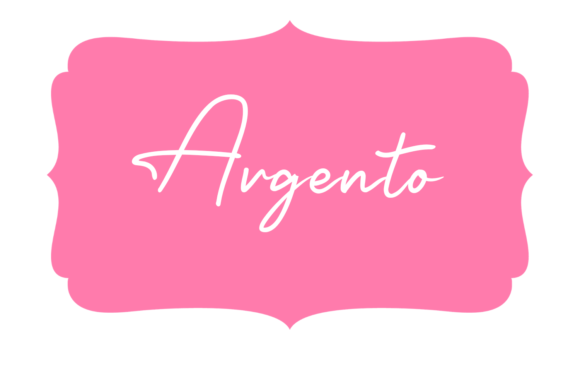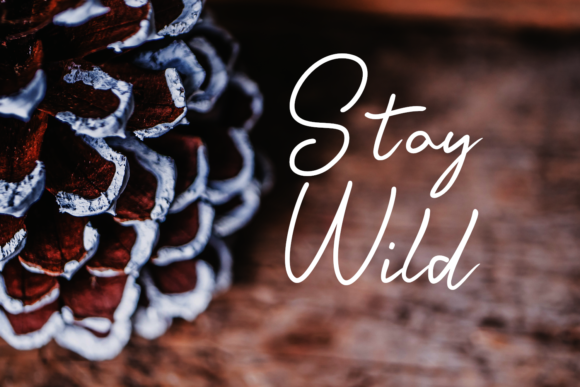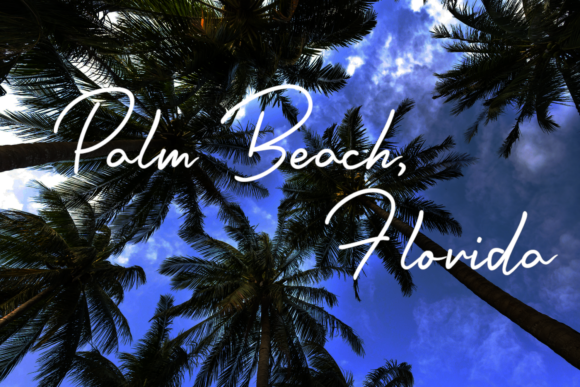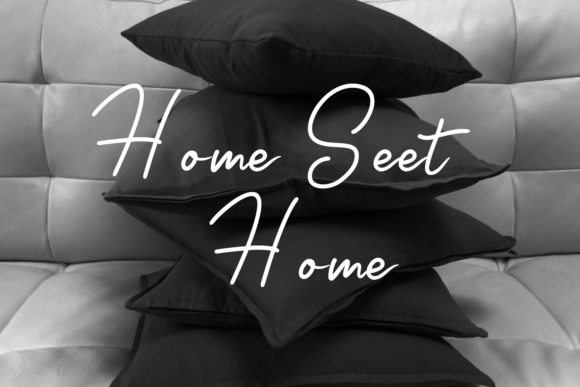
About Argento Font
Argento is a whimsical script font with a relaxed theme, featuring a lovely style. No matter the topic, this font will be an incredibly asset to your fonts’ library, as it has the potential to elevate any creation.